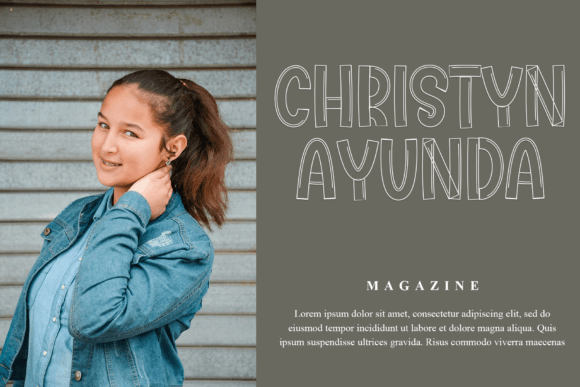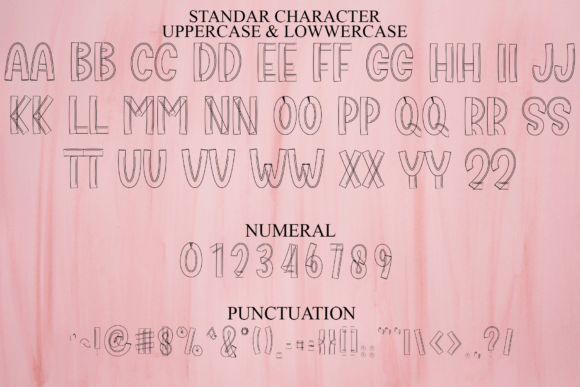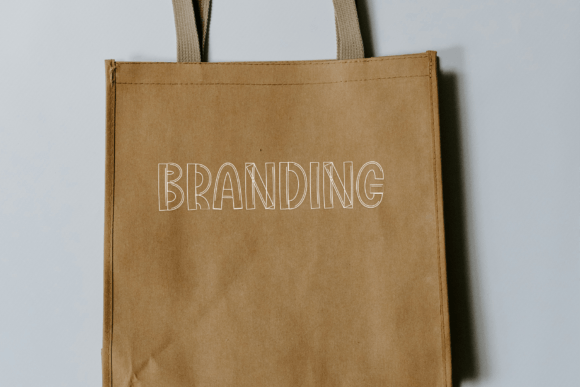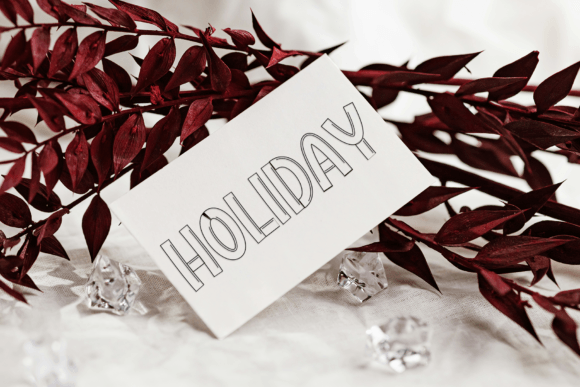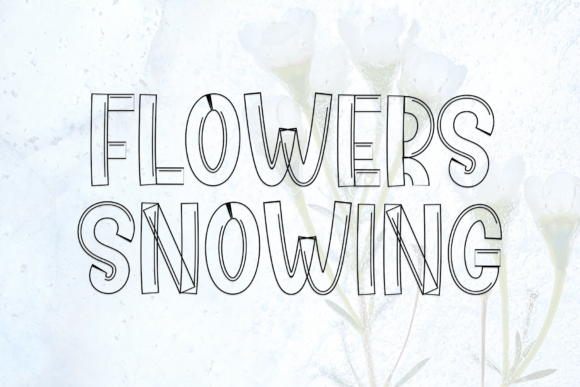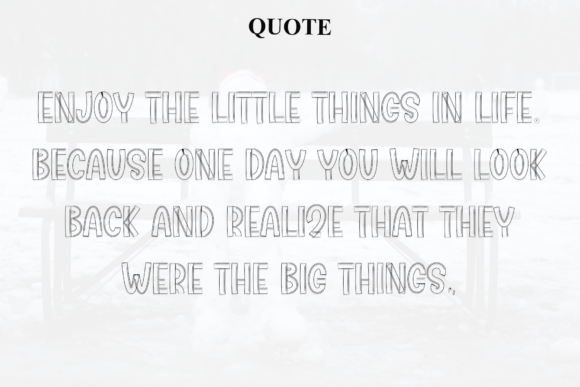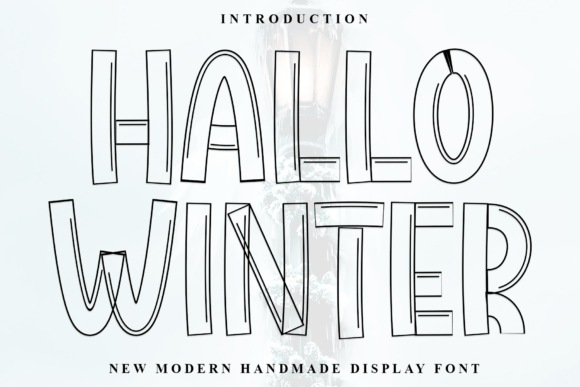
Hallo Winter Font: A Festive and Playful Display Font for Your Winter Designs
As the winter season approaches, designers and crafters are on the lookout for fonts that can add a touch of festive cheer to their designs. If you’re searching for a font that embodies the fun and playfulness of the winter season, look no further than Hallo Winter Font. This delightful outline display font is perfect for creating cheerful designs that are sure to bring a smile to anyone’s face.
What is Hallo Winter Font?
Hallo Winter is a fun and playful outline display font that has a festive, wintery feel with bold, clear lines. Its unique design makes it perfect for creating eye-catching designs that are sure to stand out. Whether you’re designing holiday cards, winter-themed posters, or festive social media graphics, Hallo Winter Font is the perfect choice.
Key Features of Hallo Winter Font
• Festive and Playful Design: Hallo Winter Font has a fun and playful design that’s perfect for the winter season. Its bold, clear lines give it a festive feel that’s sure to add a touch of cheer to your designs.
• Outline Display Font: As an outline display font, Hallo Winter is perfect for creating eye-catching designs that are sure to stand out. Its unique design makes it perfect for use in a variety of design projects.
• Bold and Clear Lines: The bold, clear lines of Hallo Winter Font make it easy to read and perfect for use in a variety of design projects, from holiday cards to winter-themed posters.
Uses for Hallo Winter Font
Hallo Winter Font is a versatile font that can be used in a variety of design projects, including:
• Holiday Cards: Create festive holiday cards that are sure to bring a smile to anyone’s face.
• Winter-Themed Posters: Design eye-catching posters that showcase the beauty of the winter season.
• Festive Social Media Graphics: Create festive social media graphics that are sure to stand out in a crowded feed.
• Winter-Themed Invitations: Design beautiful winter-themed invitations that are perfect for holiday parties and events.
Tips for Using Hallo Winter Font
Here are a few tips for using Hallo Winter Font in your designs:
• Use it with Winter-Themed Images: Hallo Winter Font is perfect for use with winter-themed images, such as snowflakes, pinecones, and holly.
• Experiment with Different Colors: Try experimenting with different colors to find the perfect combination for your design.
• Use it in Combination with Other Fonts: Hallo Winter Font can be used in combination with other fonts to create a unique and eye-catching design.
Hallo Winter Font is a fun and playful outline display font that’s perfect for creating cheerful designs for the winter season. Its festive and playful design, bold and clear lines, and ease of use make it a great choice for designers and crafters. Whether you’re designing holiday cards, winter-themed posters, or festive social media graphics, Hallo Winter Font is the perfect choice. So why wait? Download Hallo Winter Font today and start creating beautiful winter-themed designs that are sure to bring a smile to anyone’s face.